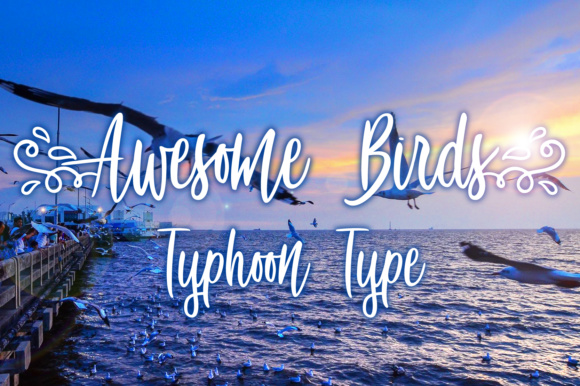
Awesome Birds Font
About Awesome Birds Font
Awesome Birds is a beautiful handwritten font, ideal for use in a wide range of works. This swashy script looks great in both modern and vintage designs, and can add a rich look to your work.